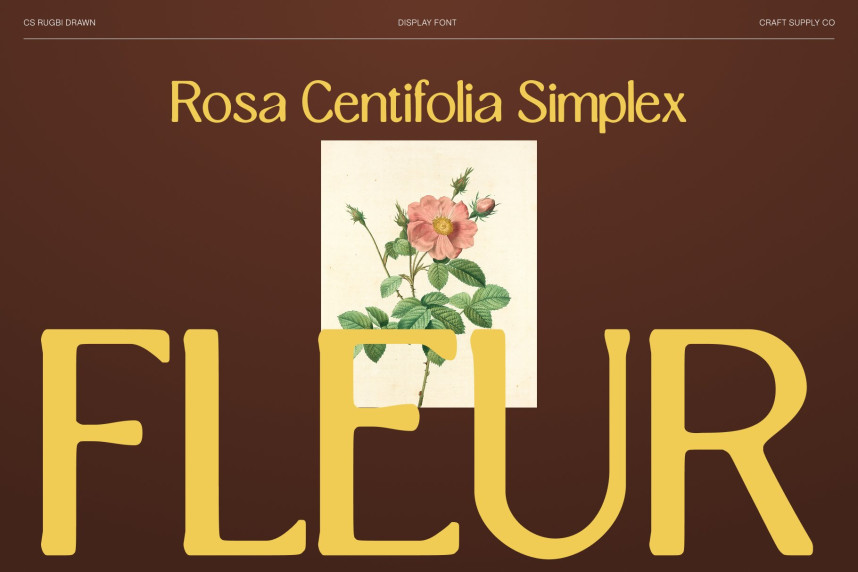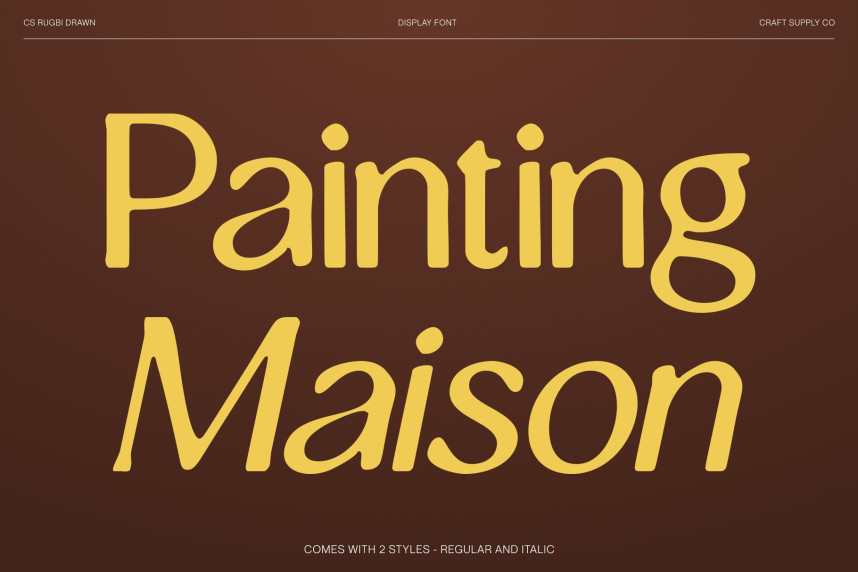
CS Rugbi Drawn Font
CS Rugbi Drawn Font – Modern Serif with Elegant Handcrafted Detail Refined Structure with Contemporary Elegance. This is a modern serif font designed with clean, contemporary lines and elongated, graceful serifs. Its well-balanced proportions and refined forms convey sophistication, professionalism, and timeless elegance, making it ideal for high-end visual projects that demand clarity and style.